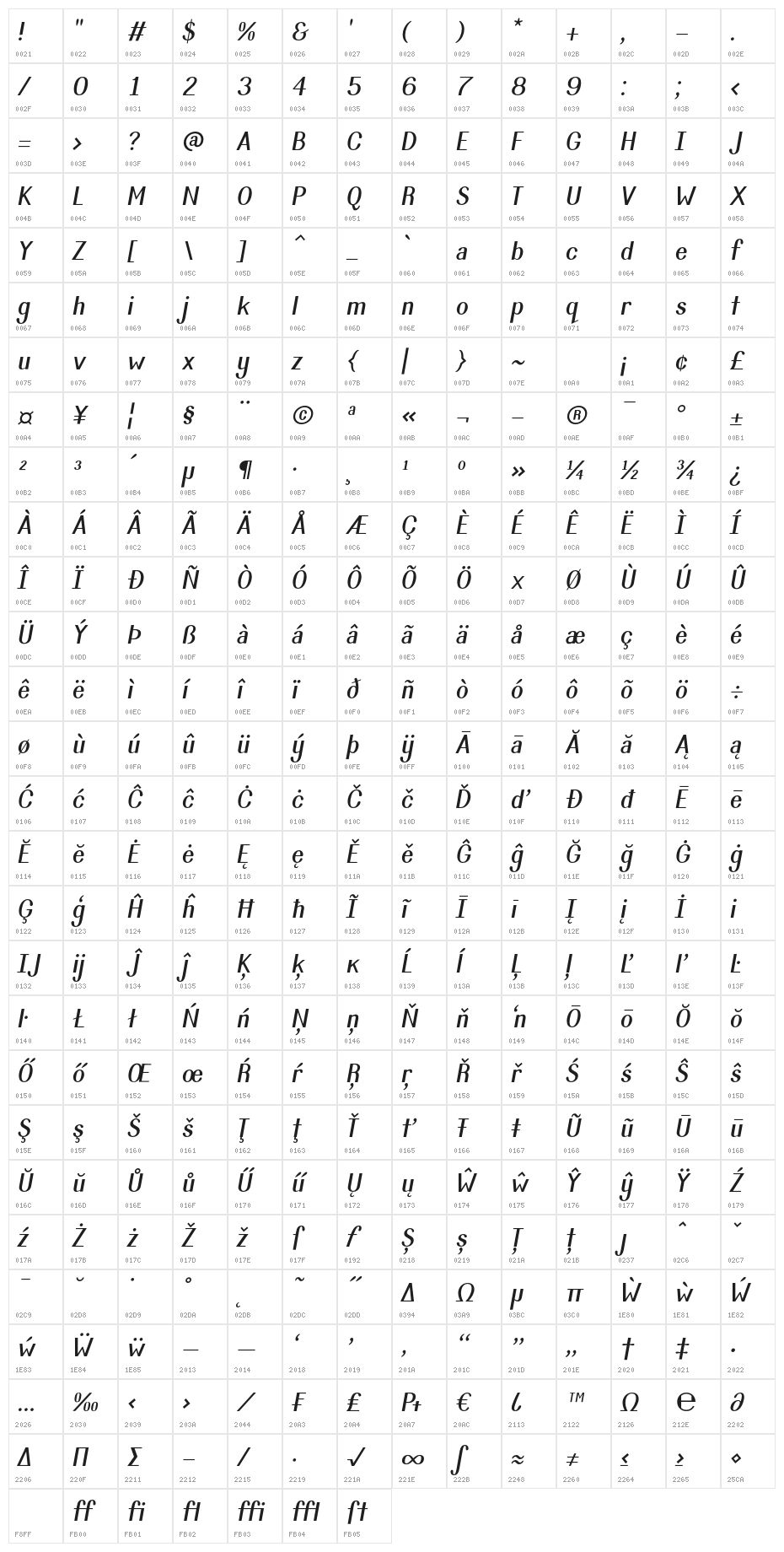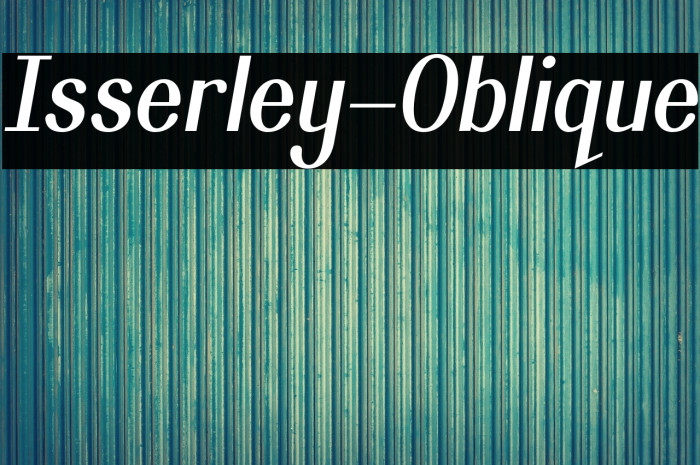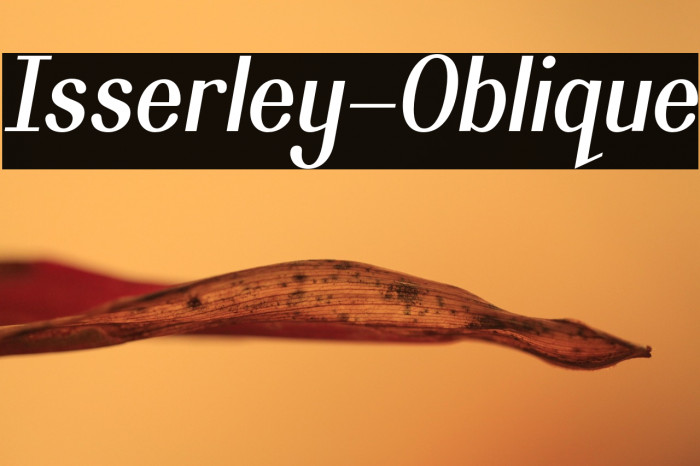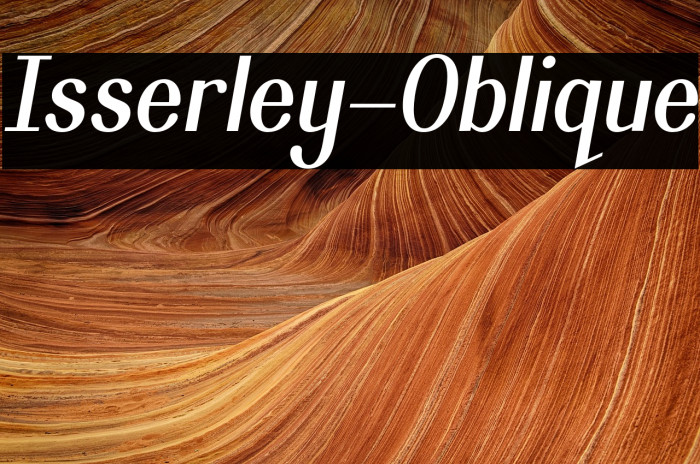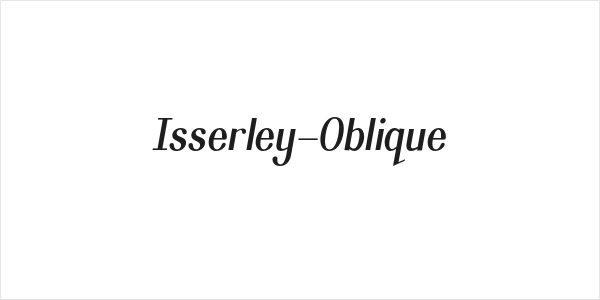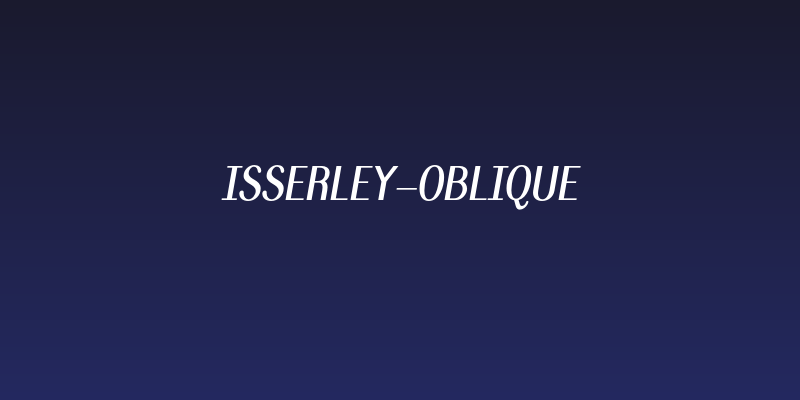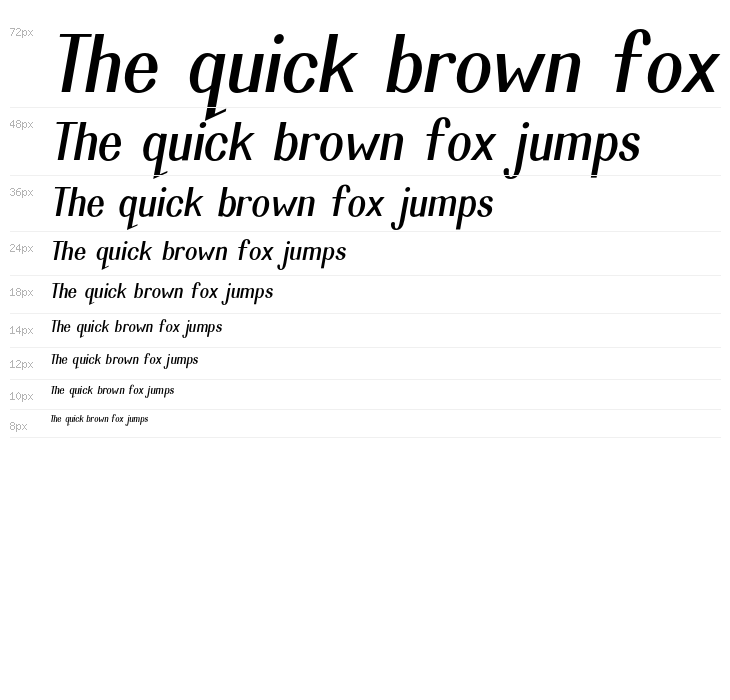
Isserley-Oblique Font
Isserley-Oblique Description
This font features an elegant and dynamic oblique style, characterized by its slanted and sleek letterforms. The typeface exhibits a modern aesthetic with a touch of sophistication, making it suitable for contemporary design projects. The uppercase and lowercase letters are well-proportioned, with a consistent slant that adds a sense of motion and fluidity. The numerals and special characters maintain the same oblique angle, ensuring uniformity across the font. The strokes are moderately thick, providing a balanced contrast that enhances readability while maintaining a stylish appearance.
| Use Case | Headlines, Logos, Editorial design |
| Proposed Projects | Ideal for branding, editorial design, fashion magazines, and modern advertising campaigns. |